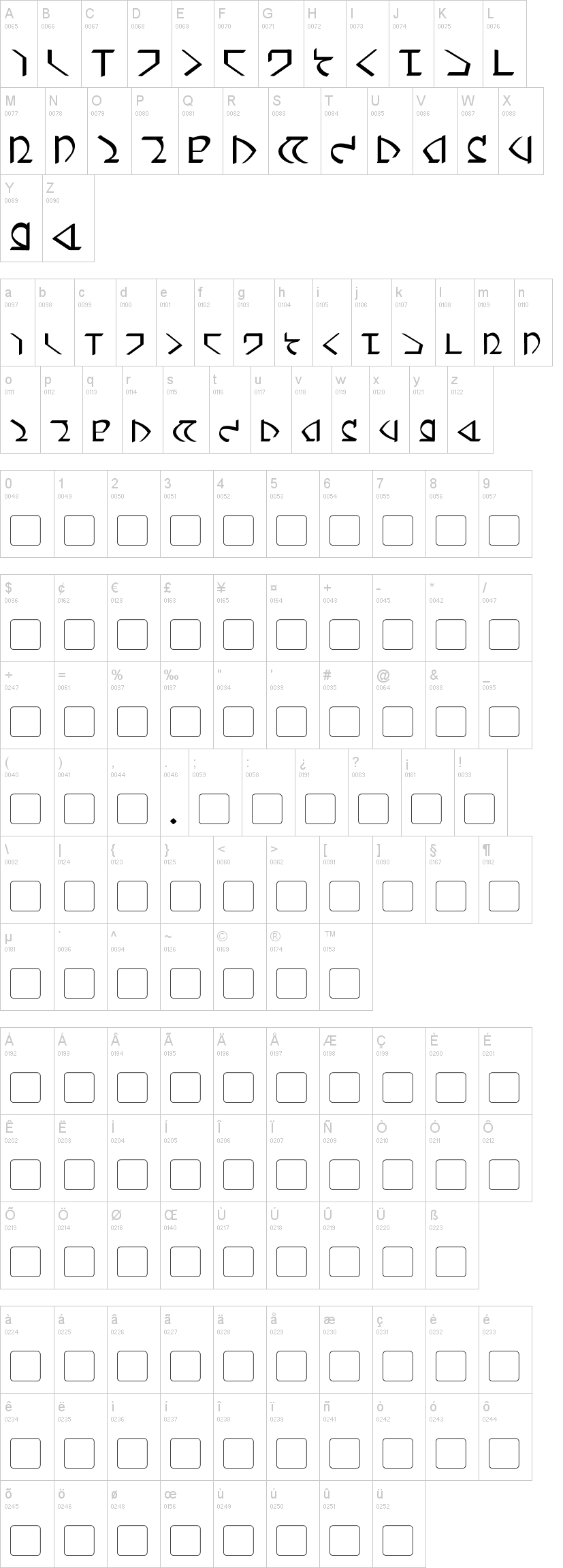
Dwemer Itliac.otfDwemer Bold.otfDwemer Bold Italic.otfNote of the authorDwemer is the written script for the Deep Elves of Bethesda Softworks Elder Scrolls series of role-playing games. The face is heavily runic with a very slight Celtic flare. Includes all canon characters. Includes regular, bold, italic, and bold-italic weights.